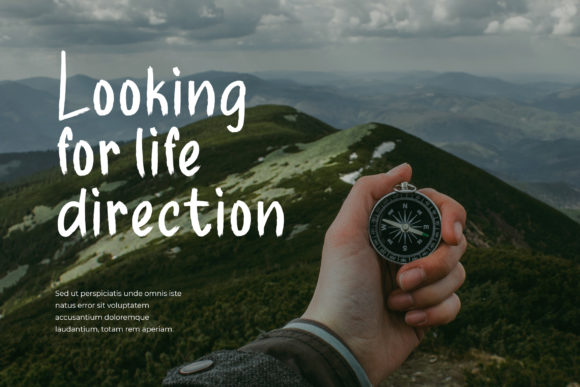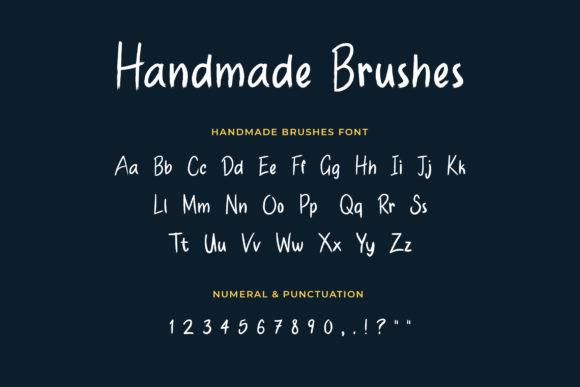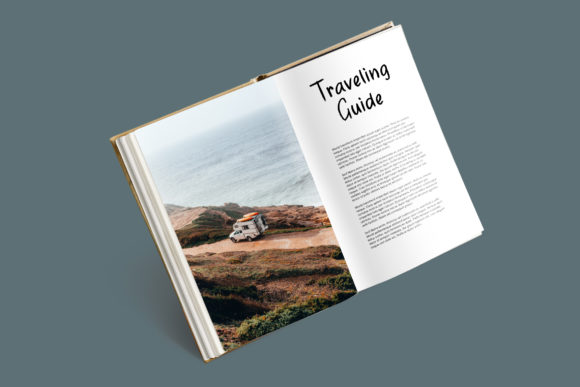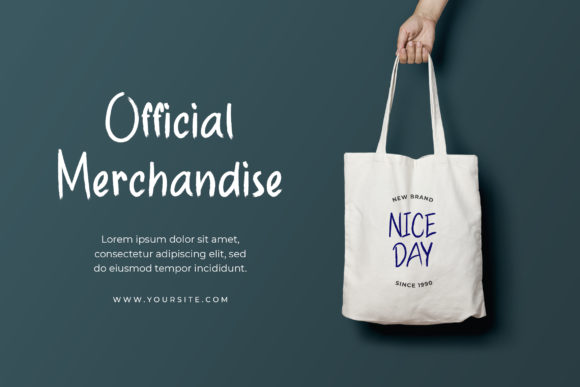
Introduction to Handmade Brushes Font
As a designer, have you ever been stuck on the perfect font for a project, only to find yourself scrolling through countless options, feeling uninspired? It was moments like these that led me to discover the Handmade Brushes Font – a simple yet stylish brushed script font that has since become a staple in my design arsenal.
What sets the Handmade Brushes Font apart is its versatility. From the free download on various design resources to its high-quality design, this font can be used for both formal and informal projects. Whether you’re working on a creative project that requires a touch of elegance or a fun design that needs a playful vibe, the Handmade Brushes Font has got you covered.
With its transparent background, this font allows for seamless integration into any design, making it an invaluable resource for designers looking to add a personal touch to their work. In this article, we’ll dive into the world of Handmade Brushes Font and explore its endless variations, so you can have fun and unleash your creativity.
Key Features of Handmade Brushes Font
- Unique, hand-drawn design that adds a personal touch to any creative project
- Perfect for designers, artists, and crafters looking for a distinctive, handmade font to elevate their work
Honest Review: Handmade Brushes Font
I recently had the chance to try out the Handmade Brushes Font, and I must say it’s been a game-changer for my creative projects. This free download has quickly become one of my go-to design resources.
- ✨ High-quality brush strokes that add a unique touch to my designs
- ✨ Transparent background, making it easy to layer with other elements
- ✨ Versatile font that works well for both digital and printed materials
- ⚠️ Limited character set, which can be a challenge for longer texts
- ⚠️ May require some tweaking to get the perfect stroke weight
Overall, I’m really impressed with the Handmade Brushes Font. It’s a great addition to any design arsenal, and its high quality makes it a must-have for any creative project. While it may have some limitations, the benefits far outweigh the drawbacks.
I would definitely recommend the Handmade Brushes Font to anyone looking to add some unique flair to their designs. It’s a fantastic resource that’s sure to inspire creativity and take your projects to the next level.
Tips for Getting the Most Out of Handmade Brushes Font
For the best results, use the Handmade Brushes Font in conjunction with a high-quality design resource. Ensure the font is used on a transparent background to achieve the best visual effect. Experiment with different font sizes and colors to add depth and creativity to your project.
Common Use Cases for Handmade Brushes Font
The Handmade Brushes Font is ideal for creative projects, such as invitations, posters, and social media graphics. Its unique, hand-painted style makes it perfect for adding a personal touch to your designs.